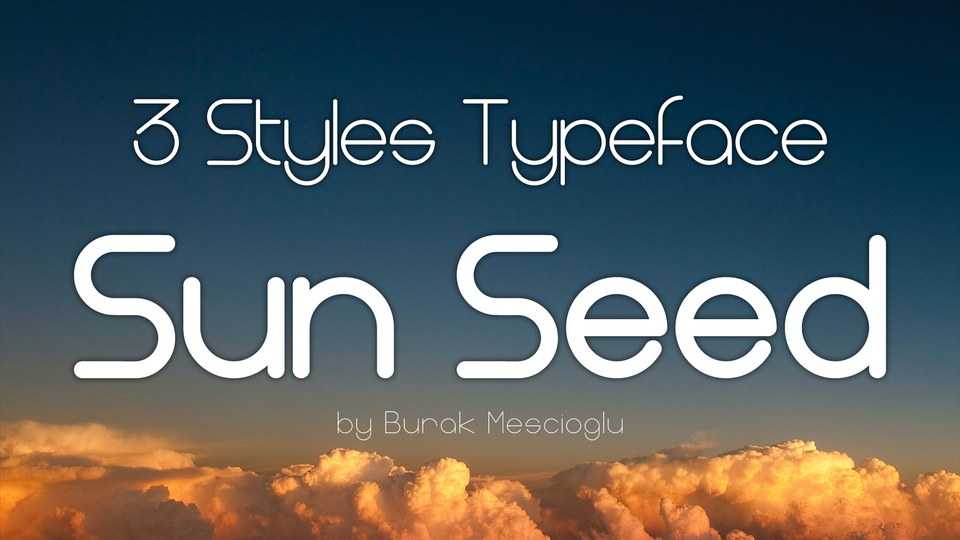
Download Sun Seed typeface, a modern sans serif font family with a geometric touch. Sun Seed looks smooth in any layout with its sleek rounded lines, use it for your magazines, brochures and editorial layouts.
Designer: Burak Mescioğlu